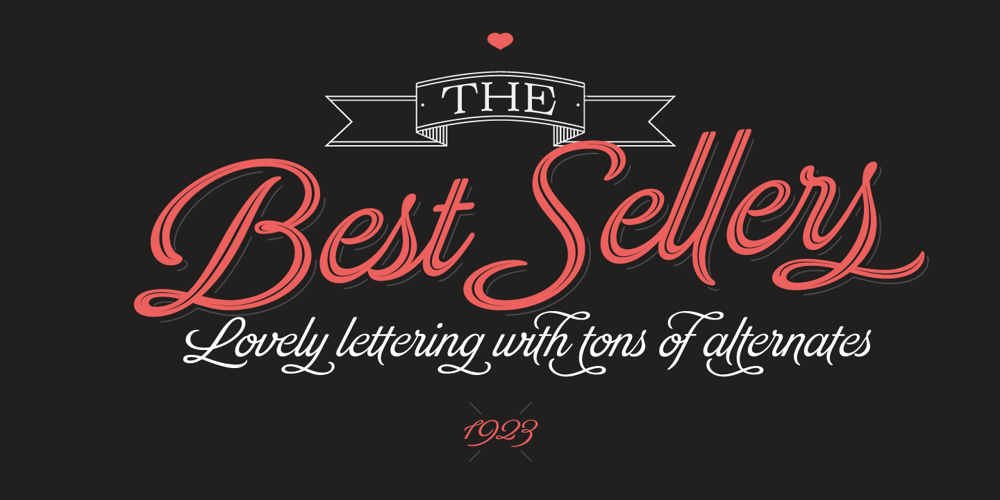
Brand Font Family was designed by Maximiliano R. Sproviero and published by Sproviero Type. Brand contains 11 styles and family package options. Jam jars; Warhol’s “Tomato Soup”; chalk lettering and baseball. Those were the triggers to make this soft chancery cursive turned into a script font. Brand is thought mainly for packaging but can be used in magazines and invitations also. It can be easily converted into a logo when using it and its features. Pro styles are loaded with the most complete sets of alternates, ligatures and ornaments; while Std styles are smaller versions of the font, with no decorative alternates.